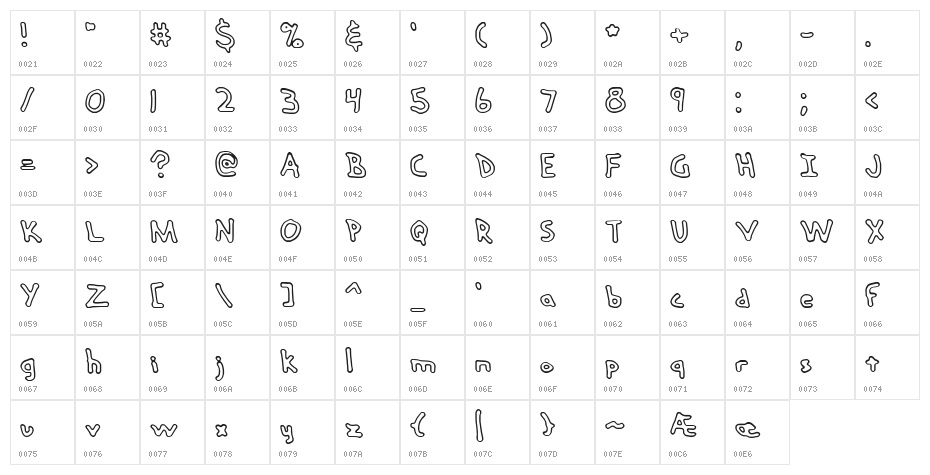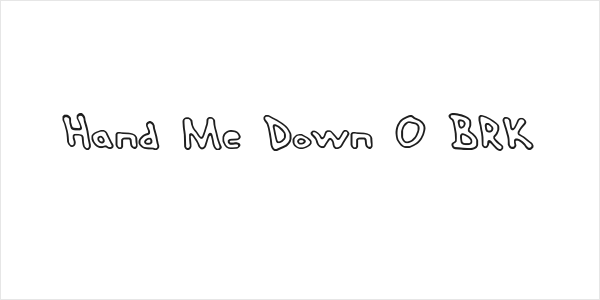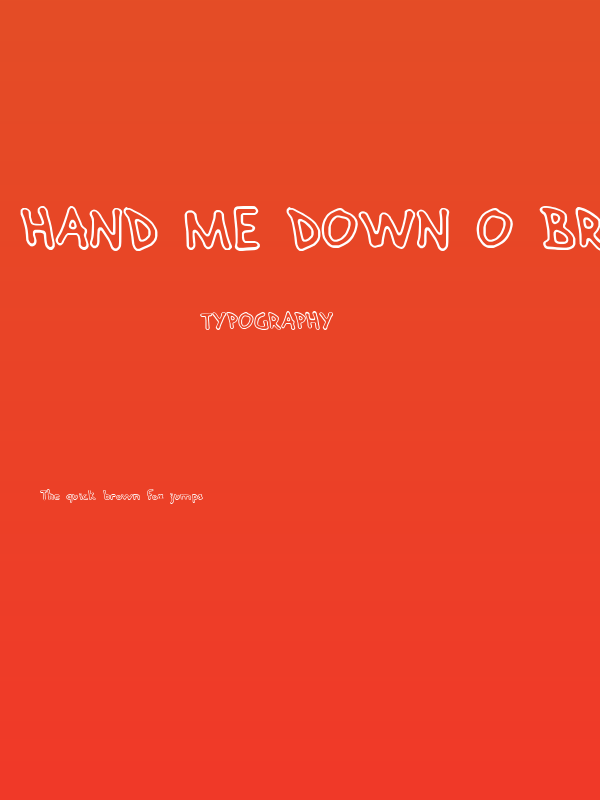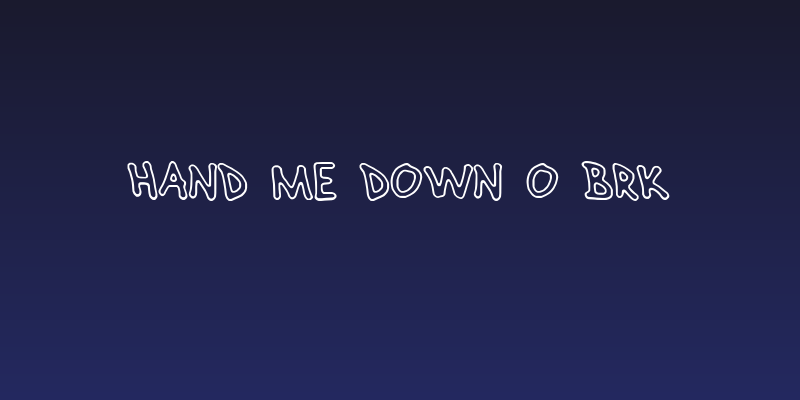
Hand Me Down O BRK Font
Hand Me Down O BRK Description
This font features a playful, hand-drawn style with a bold outline that gives each character a unique, whimsical appearance. The letters are slightly irregular, adding to the casual and informal feel. The uppercase and lowercase letters maintain a consistent style, with rounded edges and a slight tilt that suggests movement. Numbers and special characters are designed to match the overall aesthetic, providing a cohesive look. The font's boldness and distinctive outline make it stand out, ideal for creative projects that require a fun and engaging typeface.
| Proposed Projects | Ideal for children's books, comic strips, playful branding, and creative posters. |